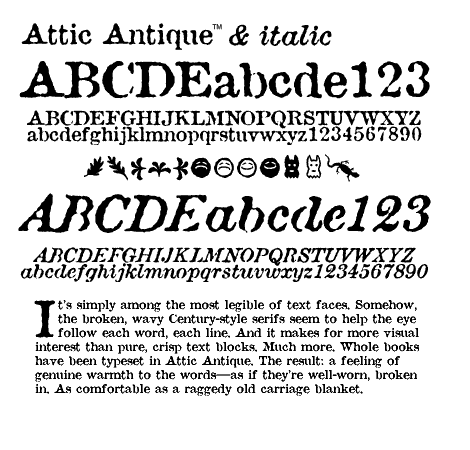
Attic Antique (Regular & Italic) (Three Islands Press)
Attic Antique(tm) shares the wide spacing and ample serifs of the Century faces. Use it to represent age, to suggest photocopied archives, or to convey a general feeling of old-bookishness. Whereas Attic Antique(tm) has numerous potential display uses -- from drop caps to headlines to poster type -- it also holds up amazingly well at small point sizes and might even serve as body copy in certain situations. Attic Antique(tm) has two styles, a roman and a true italic; both have full character sets.FONTHAUS END USER LICENSE AGREEMENT